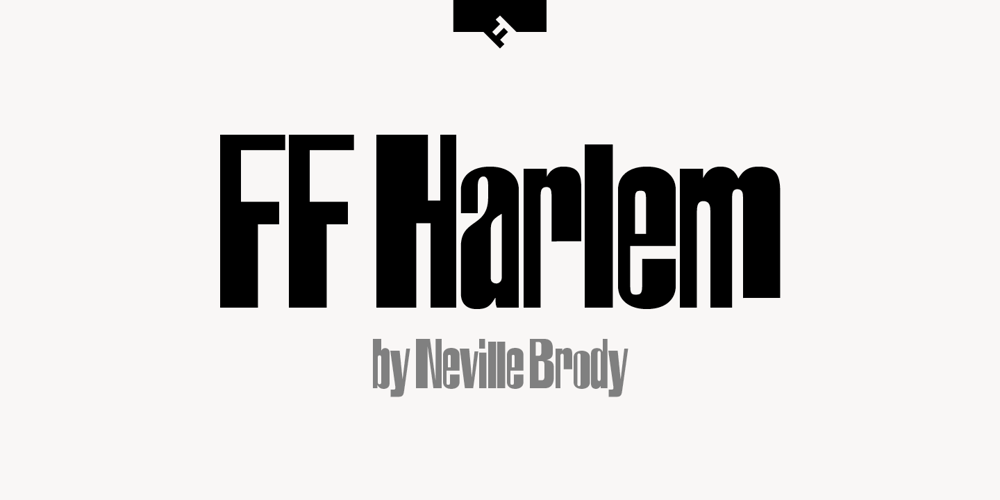
FF Harlem Font Family was designed by Neville Brody and published by FontFont. FF Harlem contains 4 styles and family package options. British type designer Neville Brody created this display FontFont in 1993. The family contains 4 weights and is ideally suited for advertising and packaging, music and nightlife, poster and billboards as well as software and gaming. FF Harlem provides advanced typographical support with features such as ligatures. It comes with proportional lining figures.